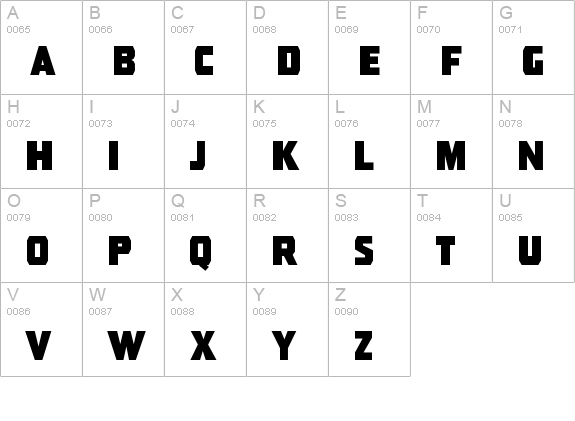
Pressboard JL Regular is the standard, neutral variant in the Pressboard typeface family \xE2\x80\x94 well suited to general body text, paragraphs, and standard typographic work.
Pressboard JL Regular font is a versatile and stylish typeface that exudes a sense of elegance and sophistication. With its clean lines and classic design, this font is perfect for a variety of design projects, from branding to editorial layouts. The sharp, modern look of Pressboard JL Regular font makes it ideal for creating eye-catching headlines and titles that command attention. Best of all, Pressboard JL Regular font is available for free download at FontsMarket.com. Whether you are a designer looking to add a touch of class to your projects or a business owner in need of a professional font for your marketing materials, Pressboard JL Regular font is the perfect choice. Download it today and elevate your designs with this timeless and elegant typeface.